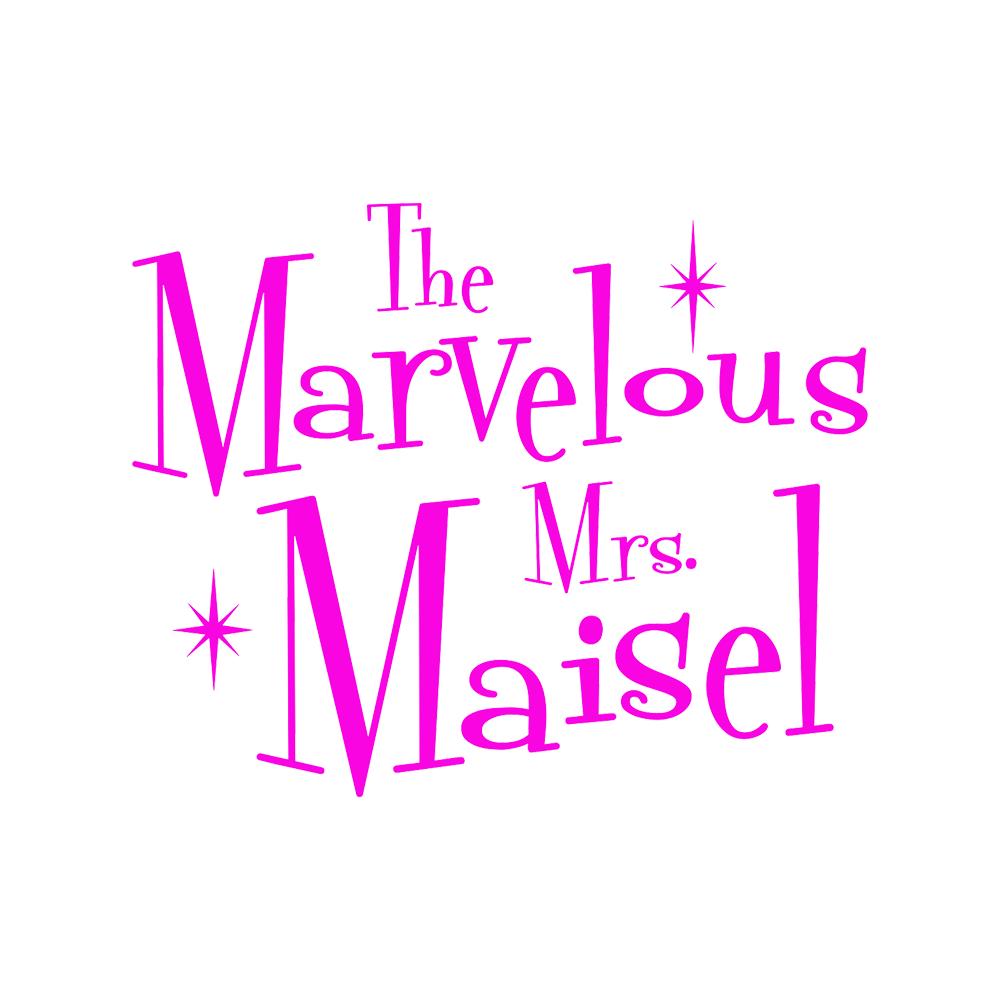
The Marvelous Mrs. Maisel Font
ComedyThe Marvelous Mrs. Maisel is an American period comedy-drama television series set in the 1950s that follows the life of Miriam "Midge" Maisel, a Jewish housewife who discovers she has a talent for stand-up comedy after her husband leaves her.